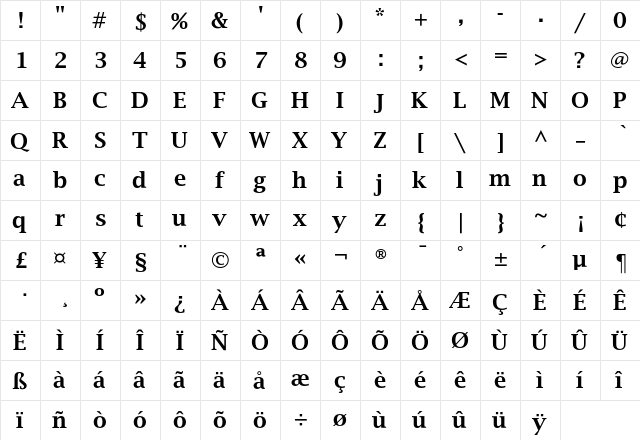
LucidaBrightEF DemiBold
Design Context for LucidaBrightEF Typeface
LucidaBrightEF is a composed and adaptable typeface that performs quietly and consistently across a wide range of design contexts. The heavy weight commands attention and anchors typographic hierarchies.
Pro Tip: Pair LucidaBrightEF with a font of contrasting weight or personality to build a more expressive typographic hierarchy.